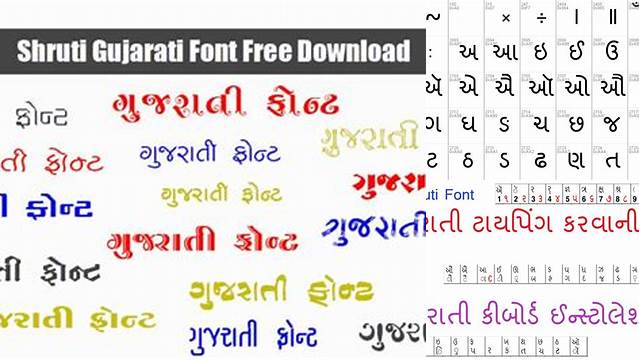
Gujarati Shruti Font: Free Download & Usage Guide
Hey guys! Looking to jazz up your documents or designs with the Gujarati Shruti font? You've come to the right place! This article will guide you on how to snag that font for free and how to use it effectively. Let's dive in!
1. Understanding the Gujarati Shruti Font
Before we get into the nitty-gritty of downloading, let's understand what makes the Gujarati Shruti font so special. This font is a staple for Gujarati text, known for its clear and legible design. It's widely used in various documents, websites, and publications, making it essential for anyone working with Gujarati content. The Gujarati Shruti font strikes a balance between traditional aesthetics and modern readability, ensuring that your text looks professional and is easy on the eyes. Its clean strokes and well-defined characters make it suitable for both print and digital media, ensuring consistent quality across different platforms. Whether you're crafting a formal letter, designing a website, or creating marketing materials, the Gujarati Shruti font provides a reliable and visually appealing option. Its widespread adoption also means that it's likely to be compatible with a wide range of software and operating systems, minimizing potential compatibility issues. Understanding the unique characteristics of the Gujarati Shruti font is the first step in appreciating its value and effectively incorporating it into your projects. From its historical roots to its modern applications, this font continues to be a cornerstone of Gujarati typography.